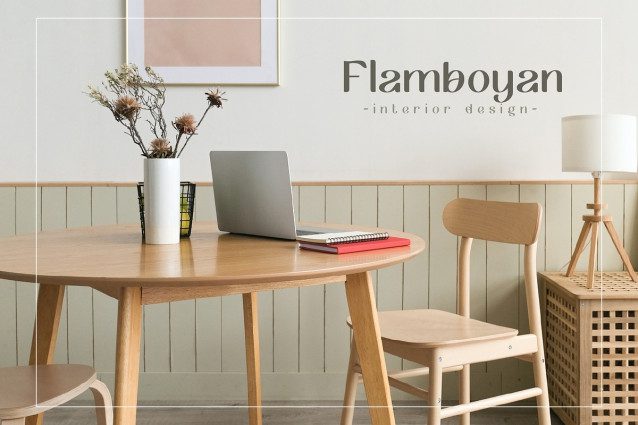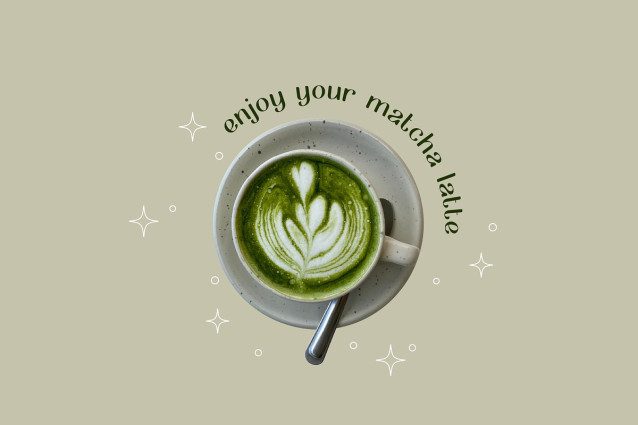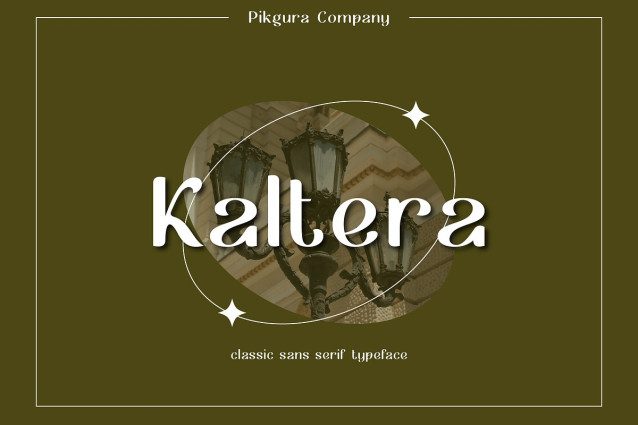
Kaltera Font
Kaltera Font is classic sans serif font, every letter has been well crafted to make your text look beautiful.The Kaltera Font has a classic and elegant style, and this font includes with matching italic.